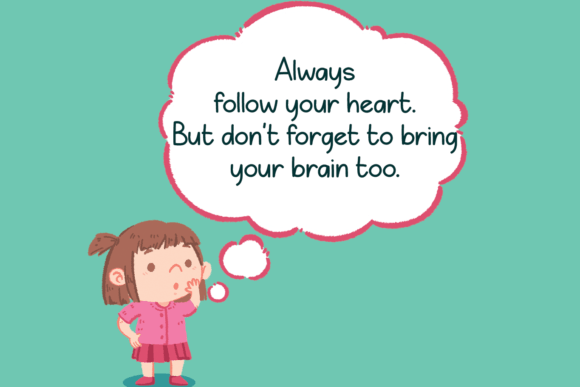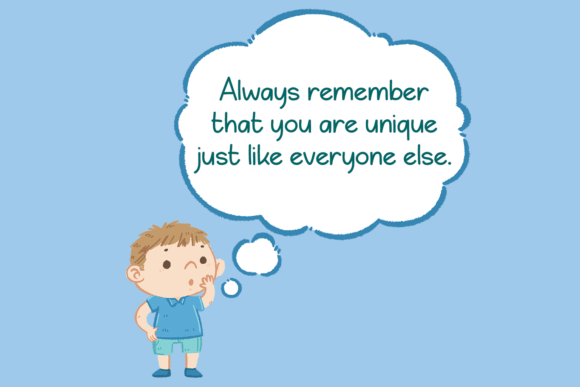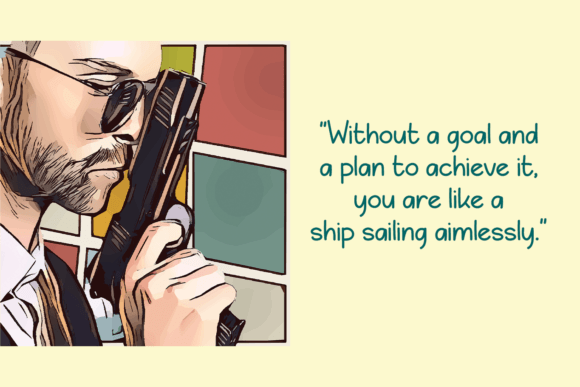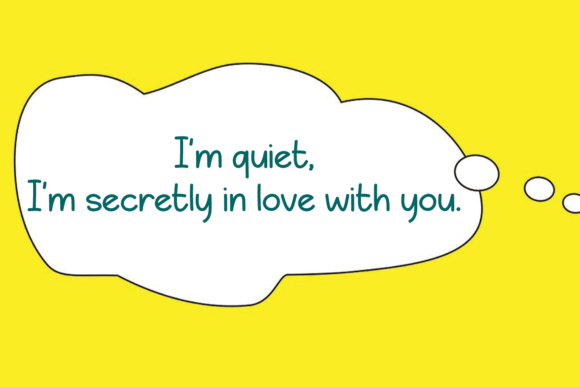
Adding a Touch of Whimsy: The Magic of Comic Font
Have you ever been brainstorming ideas for a project and suddenly a burst of creativity strikes? You envision a vibrant, playful design that captures the hearts of your audience. This is exactly where the Comic Font comes in – a friendly handwritten font that’s perfect for adding a touch of whimsy to your creative endeavors.
Comic Font is a versatile typeface that can be effortlessly incorporated into a wide range of projects, from children’s books to social media campaigns. Its unique, handwritten style makes it an excellent choice for designers looking to inject some personality into their work. By using Comic Font, you can add a friendly and approachable tone to your designs, making them more engaging and memorable.
- Unique Characteristics: Comic Sans features a playful, informal style with exaggerated letterforms, rounded edges, and a loose, cursive feel.
Comic Font Review
When I first laid eyes on Comic Font, I was immediately struck by its playful and whimsical feel. ✨ The rounded edges and casual vibe of this font make it perfect for anything from children’s book illustrations to graphic novels.
One of the things that works well in Comic Font is its versatility. ✨ It can be used for both display and body text, and its clear lines make it easy to read even at smaller sizes. Additionally, the font comes in a range of weights and styles, from bold and chunky to light and cursive.
However, I do have a few criticisms. ⚠️ For one, the font can feel a bit too casual at times, which may not be suitable for more formal projects. Additionally, the font’s rounded edges can make it difficult to read at very small sizes.
Overall, I think Comic Font is a solid choice for designers looking to add a playful touch to their projects. While it may not be suitable for every situation, it’s a great option for anyone looking to add a bit of whimsy and fun to their design.
Pros and Cons:
- ✨ Versatile and easy to read
- ✨ Available in a range of weights and styles
- ⚠️ May feel too casual for formal projects
- ⚠️ Can be difficult to read at very small sizes
Comic Font is ideal for creating playful, humorous, or cartoon-like text. Use it for:
- Comic strips and graphic novels
- Children’s books and educational materials
- Marketing materials and advertisements
- Personalized gifts and invitations
Remember to adjust the font size and style to achieve the desired effect.
Q: Can I use Comic Font for body text in a formal document or website?
While comic fonts can be used effectively in informal contexts, they may not be suitable for body text in formal documents or websites. Comic fonts can be difficult to read at small font sizes, and may not provide the same level of professionalism as a more traditional font. However, they can be used effectively for headings, titles, or other display text in formal contexts, as long as they are used judicious